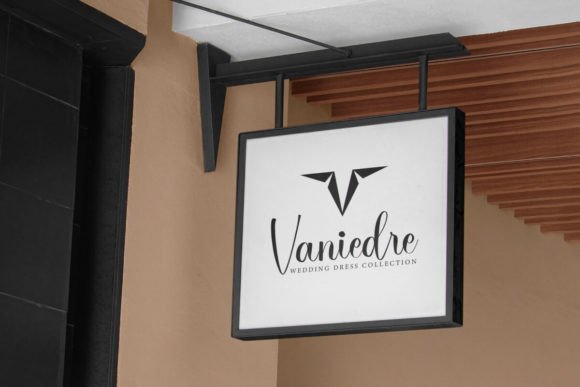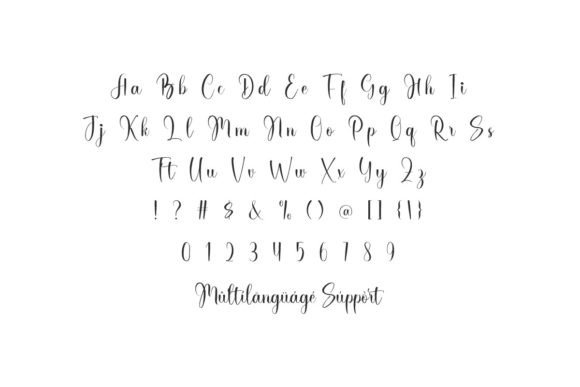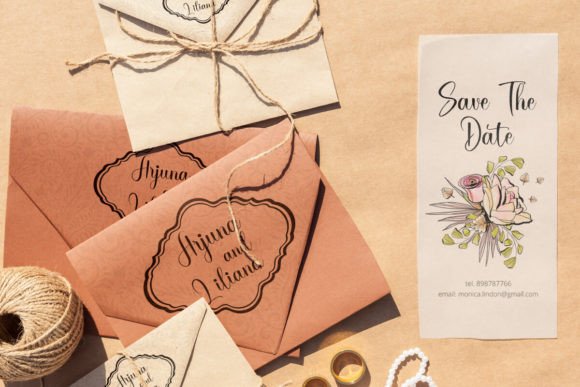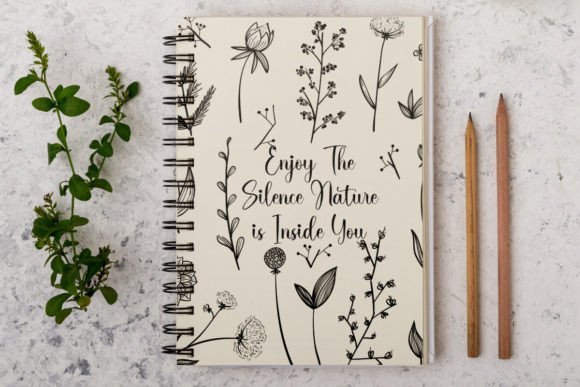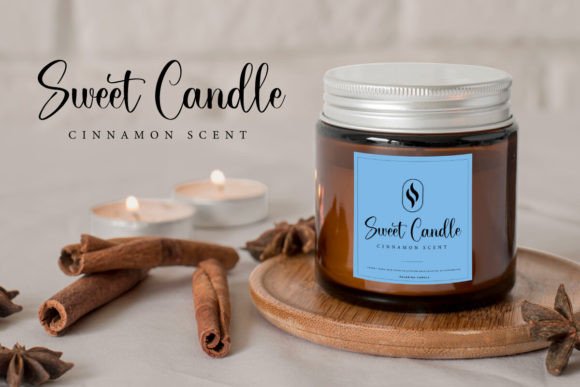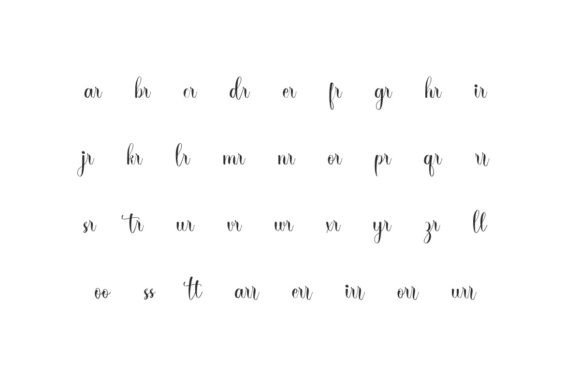
Introducing Haura Authentic Font: Elevate Your Designs with Elegant Calligraphy
In the world of typography, calligraphy fonts have always been a popular choice for designers and crafters looking to add a touch of elegance and sophistication to their work. One such font that has caught the attention of many is Haura Authentic Font, a stunning calligraphy font that embodies the perfect blend of beauty and readability. In this article, we’ll dive into the features and benefits of Haura Authentic Font, and explore how it can elevate your designs across various industries.
The Beauty of Haura Authentic Font
Haura Authentic Font is an elegant, beautiful calligraphy font that is crafted with lines that flow naturally, as if blown by the wind. This unique design element gives the font its distinctive charm, making it perfect for projects that require a touch of sophistication and refinement. The font’s natural flow ensures that it remains easy to read, making it an excellent choice for body text, headings, and titles.
Versatility Across Industries
One of the standout features of Haura Authentic Font is its versatility. Its elegant and refined design makes it suitable for a wide range of industries, including:
- Artist: Add a touch of elegance to your art portfolio or exhibition catalogs.
- Boutique: Elevate your brand with a sophisticated font that reflects your high-end products.
- Cosmetic: Create stunning packaging and marketing materials that exude luxury and refinement.
- Event Tenant: Make your event branding and promotional materials stand out with a beautiful calligraphy font.
- Fashion: Perfect for fashion brands, designers, and influencers looking to add a touch of elegance to their marketing materials.
- Photography: Use Haura Authentic Font to add a touch of sophistication to your photography portfolios and marketing materials.
- Real Estate: Elevate your property listings, brochures, and marketing materials with a refined and elegant font.
- Restaurant: Add a touch of luxury to your menu, website, and marketing materials.
- Spa Salon: Create a relaxing and sophisticated atmosphere with Haura Authentic Font.
- Writer: Use Haura Authentic Font to add a touch of elegance to your book covers, articles, and blog posts.
Why Choose Haura Authentic Font?
So, what sets Haura Authentic Font apart from other calligraphy fonts? Here are a few reasons why designers and crafters love this font:
- Elegant Design: Haura Authentic Font boasts an elegant design that is perfect for projects that require a touch of sophistication.
- Readability: Despite its elegant design, Haura Authentic Font remains easy to read, making it perfect for body text and headings.
- Versatility: Its versatility makes it suitable for a wide range of industries and applications.
- Unique Style: Haura Authentic Font has a unique style that sets it apart from other calligraphy fonts.
In conclusion, Haura Authentic Font is an elegant and beautiful calligraphy font that is perfect for designers and crafters looking to add a touch of sophistication to their work. Its unique design, versatility, and readability make it suitable for a wide range of industries and applications. Whether you’re working on a fashion brand, photography portfolio, or restaurant menu, Haura Authentic Font is sure to elevate your designs and leave a lasting impression.